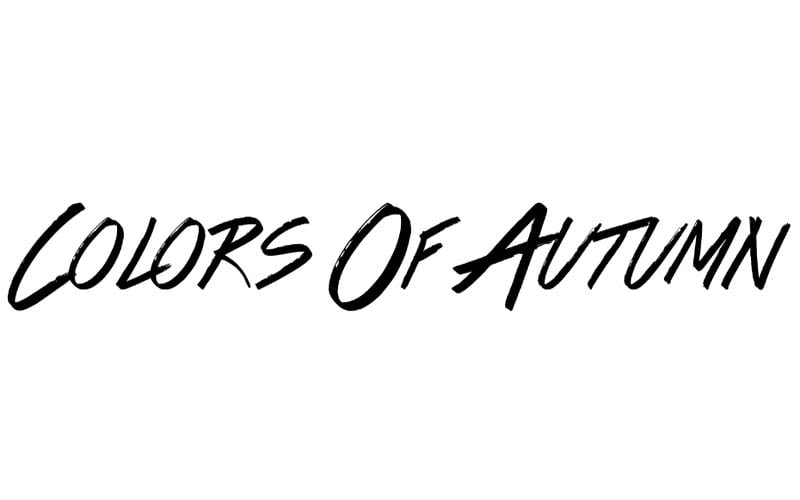
Colors of Autumn Font is a script handwritten typeface that comes in bold and thin display texture. Mr. Jonathan S. Harris took charge of designing and releasing it for the first time.
This display typeface has come in only one style with Ture Type features. Moreover, It contains 240 characters and 149 unique glyphs. Due to its shapes and fun twists, it turns into a popular font all over the world.
This remarkable typeface is ideal for logo designs, title making, printing objects, brochure layouts, wedding cards, book composing, posters advertising, official card designs, invitation, and so on.
| Style: | Handwritten, Script, Typeface |
Colors of Autumn Font is a beautiful and charming layout in all text formats including fonts. This cool typeface family has contained excellent glyphs, terminal letters, alternates as well as Roman numerals.